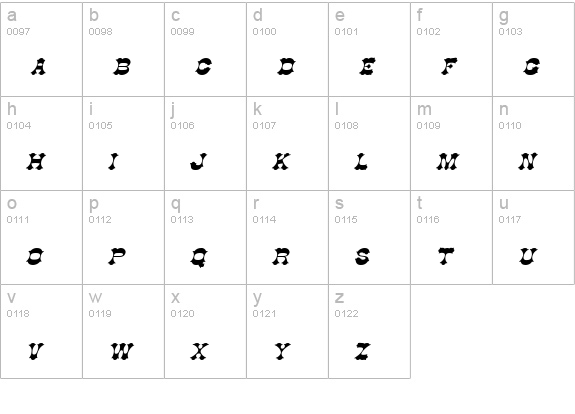
Cowboy Italic is a distinctive, italic variant in the Cowboy typeface family \xE2\x80\x94 well suited to design and typography projects.
Introducing Cowboy Italic font, a bold and rugged typeface that embodies the spirit of the Wild West. This dynamic font exudes a sense of adventure and daring, perfect for capturing the essence of cowboy culture. With its slanted and italicized design, Cowboy Italic font adds a unique twist to any project, giving it a touch of authenticity and character. Best of all, Cowboy Italic font is available for free download at FontsMarket.com. Whether you're working on a western-themed design, creating eye-catching headlines, or simply looking to add a touch of flair to your project, Cowboy Italic font is the perfect choice. So saddle up and download this versatile and powerful font today to bring your designs to life with a touch of cowboy charm.